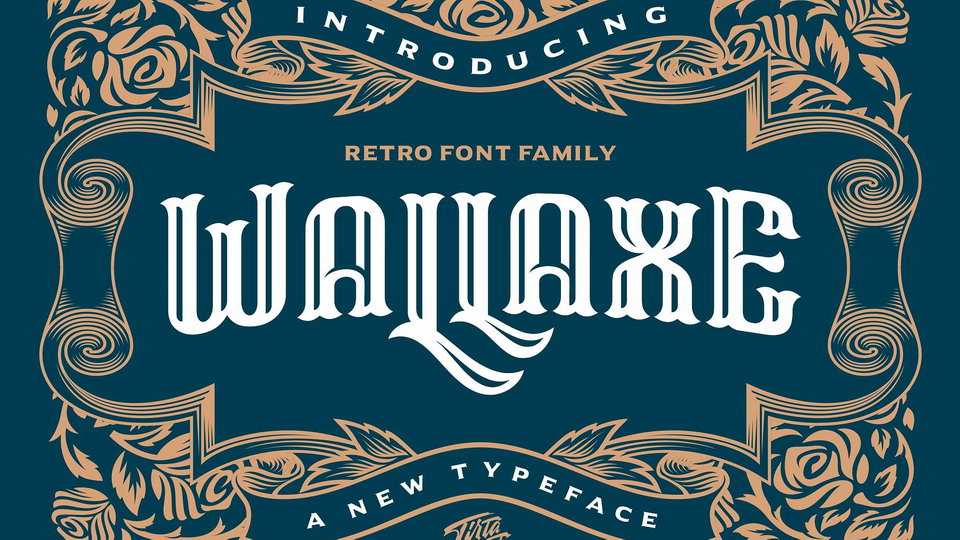
Download WallAxe typeface, a gorgeous font with classic, elegant, vintage, luxury, and clean feel. WallAxe typeface is suitable for various purposes like logotype, signage, label, poster, dropcap, titles, letterhead, book cover and etc.
Designer: Nocturnal Workspace